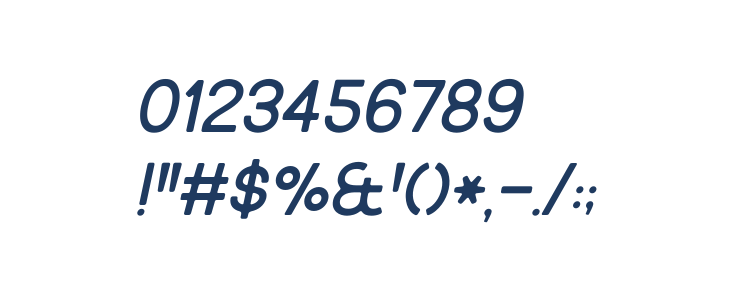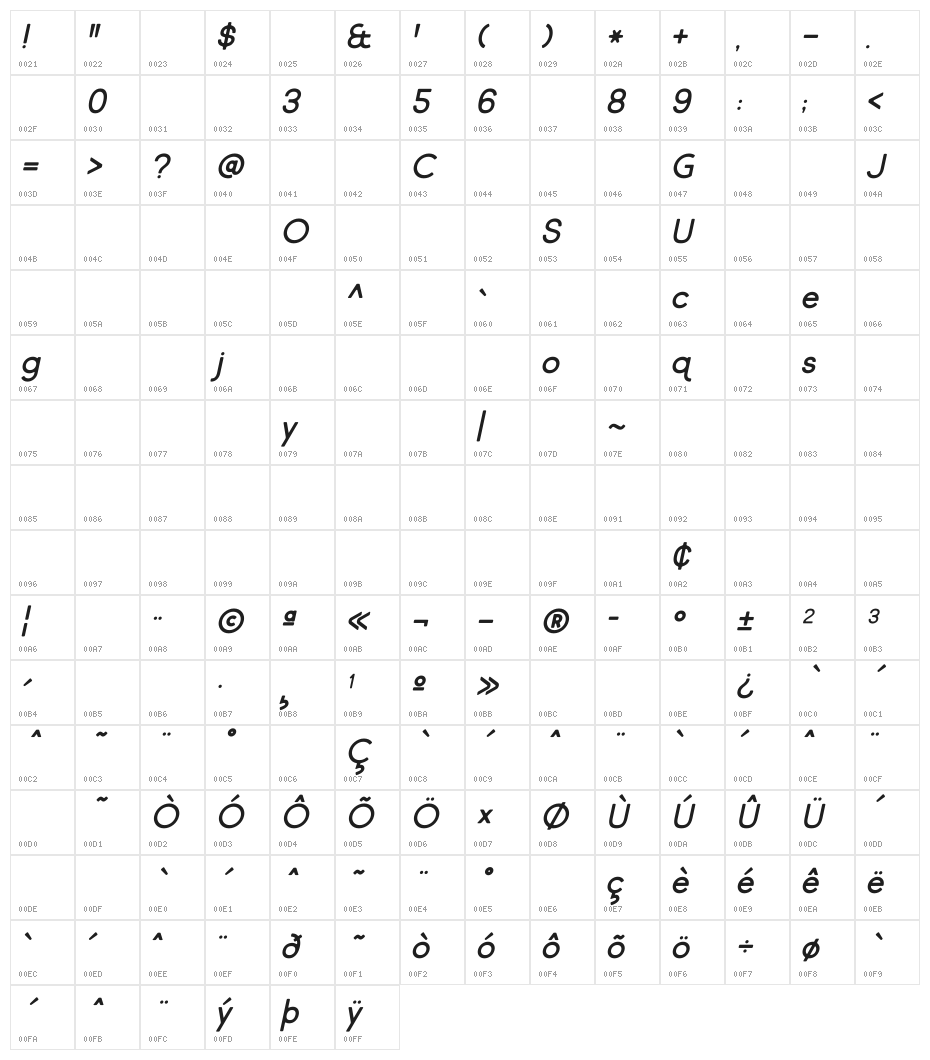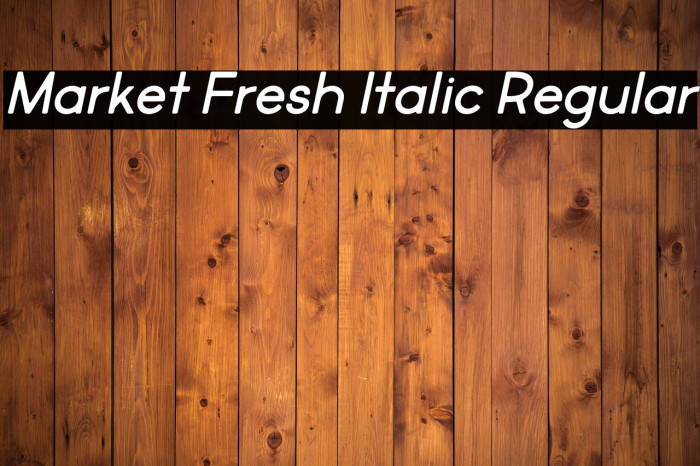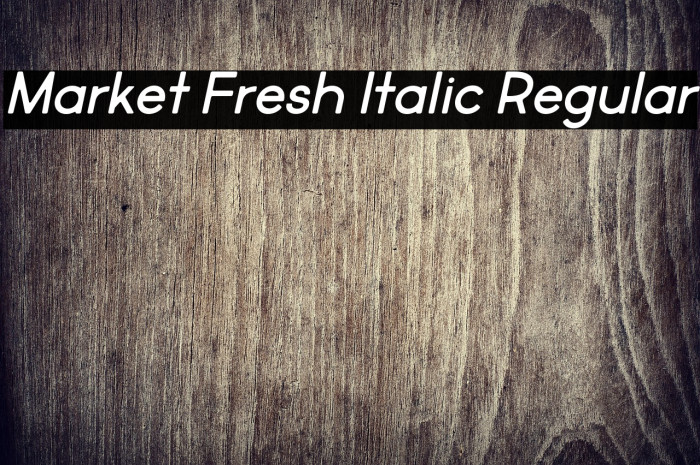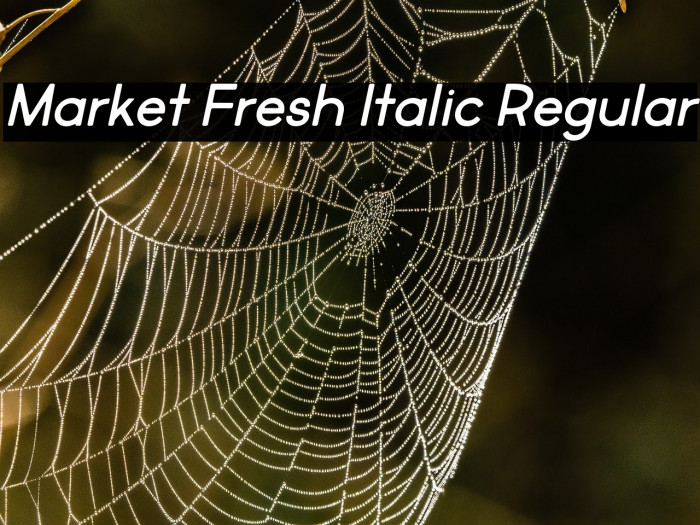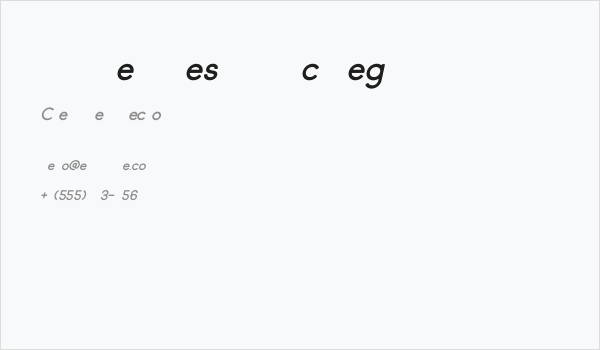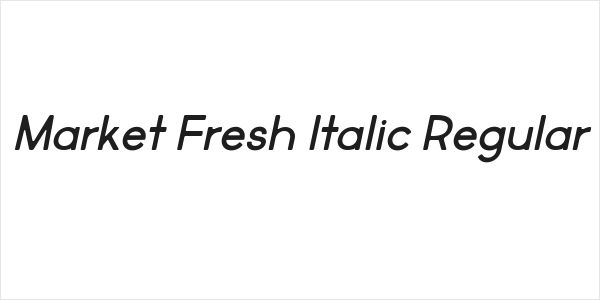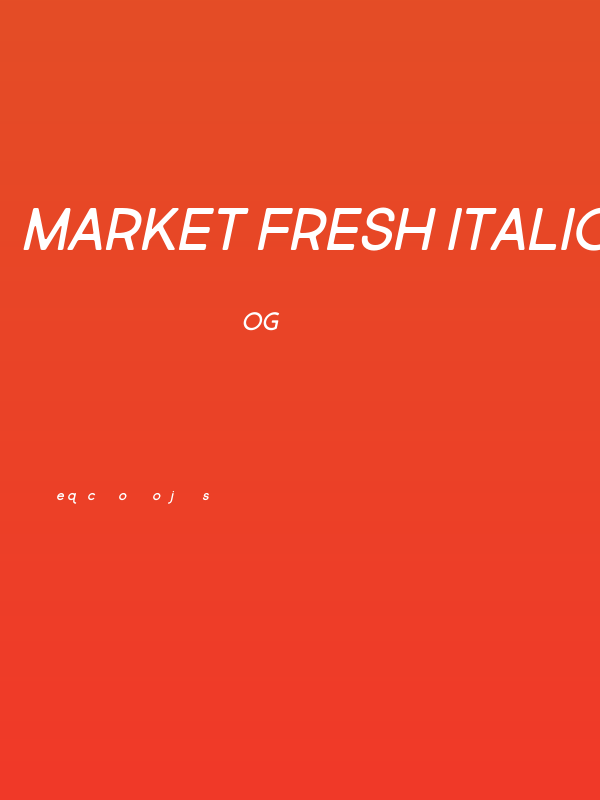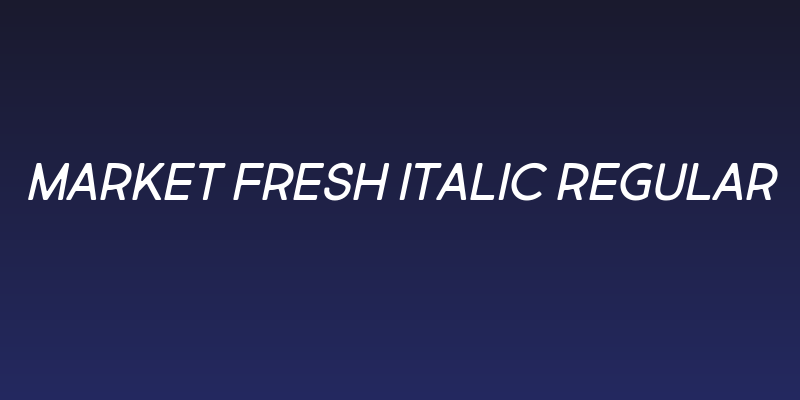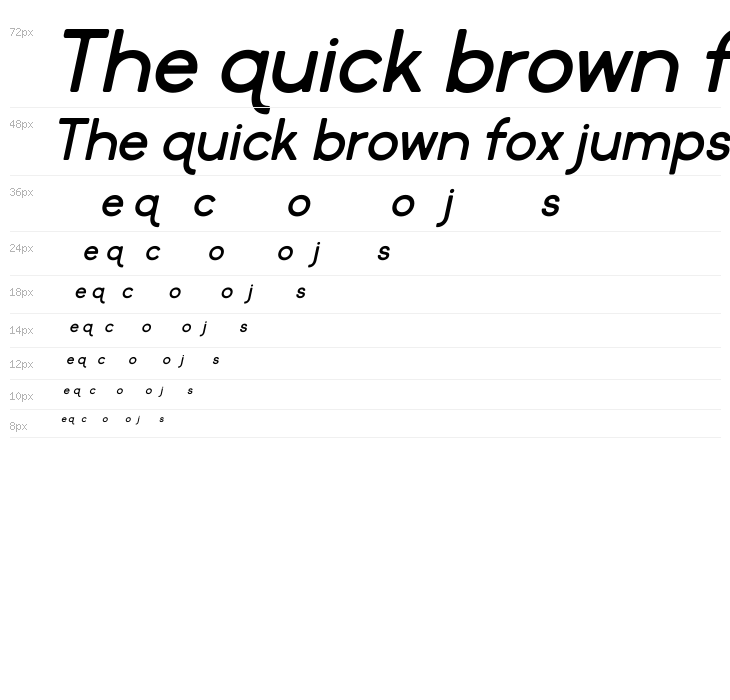
Market Fresh Italic Regular Font
Market Fresh Italic Regular Description
This font features a sleek, modern design with a slight italic slant, giving it a dynamic and forward-moving appearance. The characters are well-rounded with smooth curves and a consistent stroke width, providing a clean and polished look. The uppercase and lowercase letters maintain a uniform style, ensuring readability and aesthetic appeal. The numerals and special characters are designed to complement the alphabet, making this font versatile for various applications. Its contemporary style is suitable for both digital and print media, offering a professional yet approachable feel.